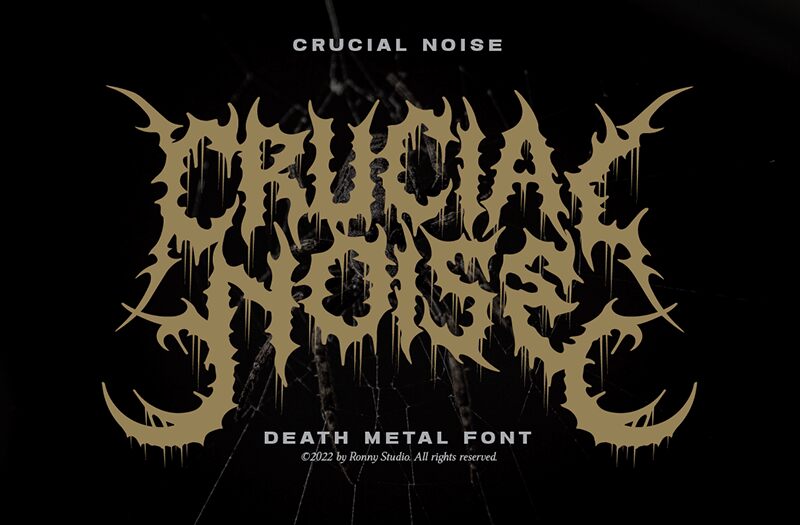
Crucial Noise, a bold and captivating gothic font designed by Ronny Studio, exudes a striking modern aesthetic. Its jagged, razor-sharp edges and dramatic, angular forms create an unmistakable sense of power and intensity, evoking a raw, gritty atmosphere. The font's distinctive character and bold, uncompromising style make it a compelling choice for projects seeking to convey a bold, edgy, or industrial-inspired visual identity.
This versatile font lends itself well to a diverse range of applications, from eye-catching headlines and impactful logos to immersive branding and packaging designs. Its strong, attention-grabbing presence makes it an excellent selection for projects that demand a bold, commanding typographic presence, such as heavy metal album covers, action-packed movie posters, or signage for urban environments.